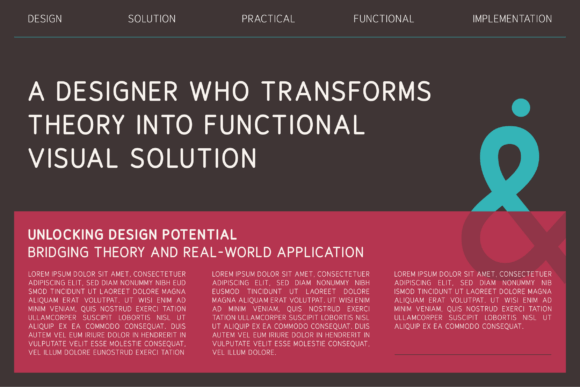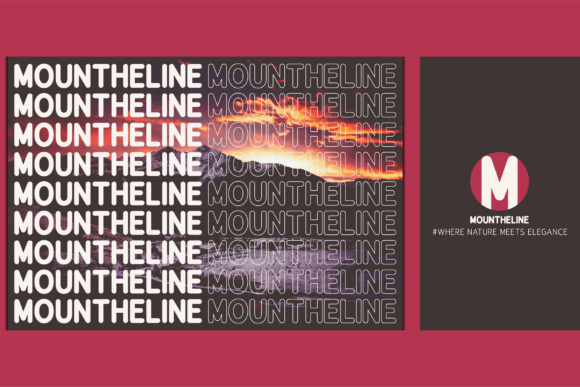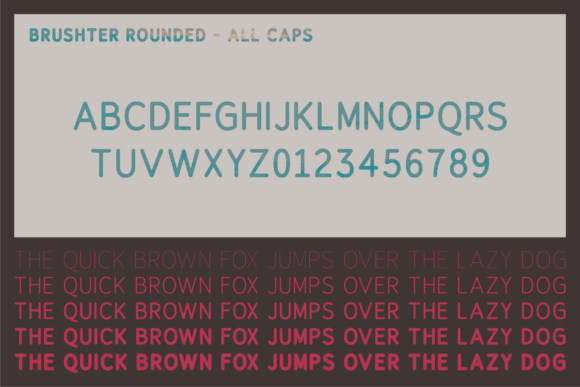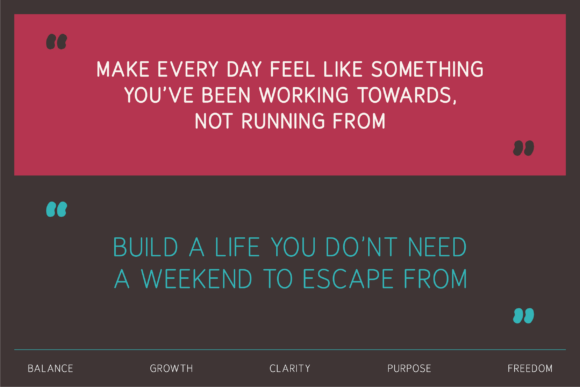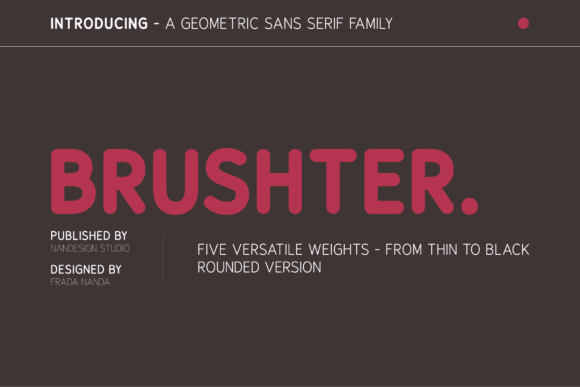
Bringing Warmth to Your Design: The Power of Brushter Rounded Font
Have you ever stared at a blank page, trying to find the perfect font to convey the tone of your brand? The struggle is real, but what if I told you there’s a font that can effortlessly blend modernity with approachability? For designers seeking to create a lasting impression, the Brushter Rounded Font is a game-changer.
This softer, rounded version of the original Brushter font brings a warm and friendly feel without sacrificing its structural integrity. Its geometric balance and five weight options make it a versatile choice for various industries, including tech startups, education brands, wellness products, and children-focused designs.
What makes the Brushter Rounded Font truly valuable is its ability to evoke a sense of trust and reliability, while still maintaining a sleek, professional look. Whether you’re working on a brand identity or creating a digital product, this font is sure to make a lasting impression.
Key Features of Brushter Rounded Font
- Font Style: Brushter Rounded is a rounded sans-serif font, perfect for creating a friendly and approachable tone in designs.
- Unique Characteristic: The rounded edges and smooth curves of Brushter Rounded create a unique visual appeal, making it stand out from other sans-serif fonts.
- Font Weight: Available in 4 weights: Light, Regular, Medium, and Bold, providing ample options for creating visual hierarchy and emphasis in designs.
Brushter Rounded Font Review
When I first laid eyes on Brushter Rounded Font, I knew I had to give it a try. The designer’s use of rounded edges and smooth curves ✨ immediately caught my attention, making it perfect for projects that require a touch of warmth and approachability. I appreciate how versatile this font is, suitable for both digital and print materials.
Here are some of the key strengths of Brushter Rounded Font:
- High-quality rendering, making it ideal for digital displays ✨
- Wide language support, ensuring it can be used globally ✨
- Some users may find the rounded edges too cursive, potentially making text harder to read ⚠️
- The font may not be as effective for titles or headings where boldness is required ⚠️
Overall, I think Brushter Rounded Font is a solid choice for designers who want to add a touch of friendliness to their projects. While it may not be the best option for every project, it’s definitely worth considering for those that require a warm and approachable feel.
Brushter Rounded Font is ideal for creating a friendly and approachable atmosphere in your designs. Use it for:
- Brand logos and identities
- Blog posts and articles
- Infographics and educational materials